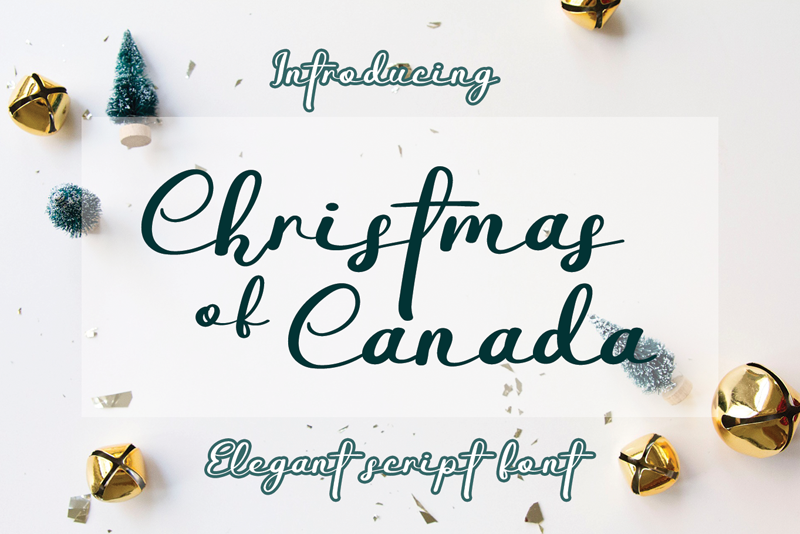
Preview and download Christmas of Canada Font. Created by Erik Luluk in Script Calligraphy styles with Free for personal use license.
Font name: | Christmas of Canada |
Christmas Of Canada is a lovely script font featuring charming, playful characters that seem to dance along the baseline. Add this font to your most creative ideas, and notice how it makes them stand out! Attention : Christmas Of Canada handwriting Font is prohibited to use this font for commercial purposes or for profit without the permission of the author/admin, without being known to use this font without permission, will be subject to sanctions 5x the specified price. This font is used only for demos (Demo license) If you want to use this font for commercial use please contact email: erikluluk0@gmail.com or click the link below: https://www.creativefabrica.com/product/christmas-of-canada/ref/745146/ If you want to see more other fonts, please click:https://www.creativefabrica.com/designer/erik-studio/ref/745146/ Any donations are very appreciated. Paypal account for donation: https://paypal.me/eriksupriyant thanks. |